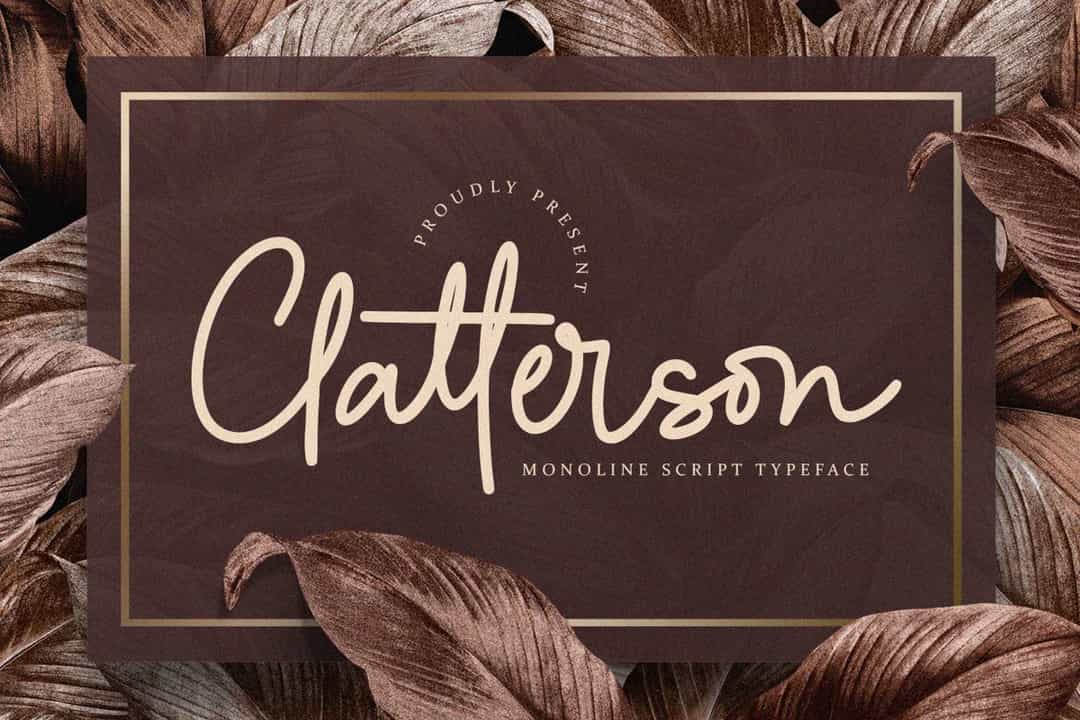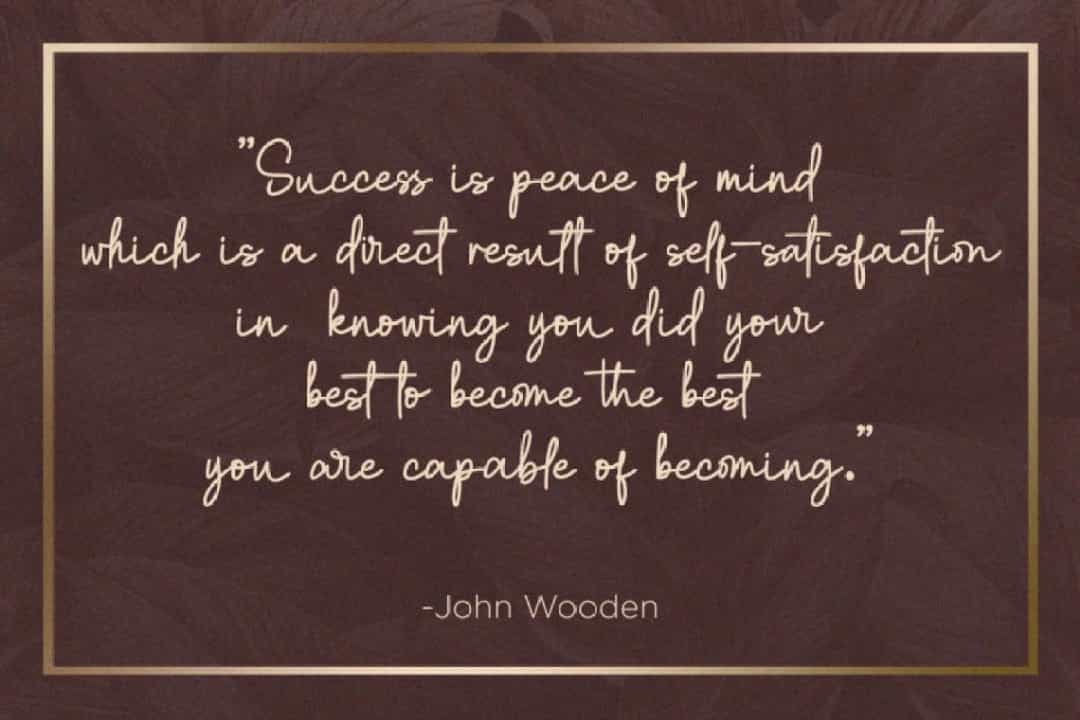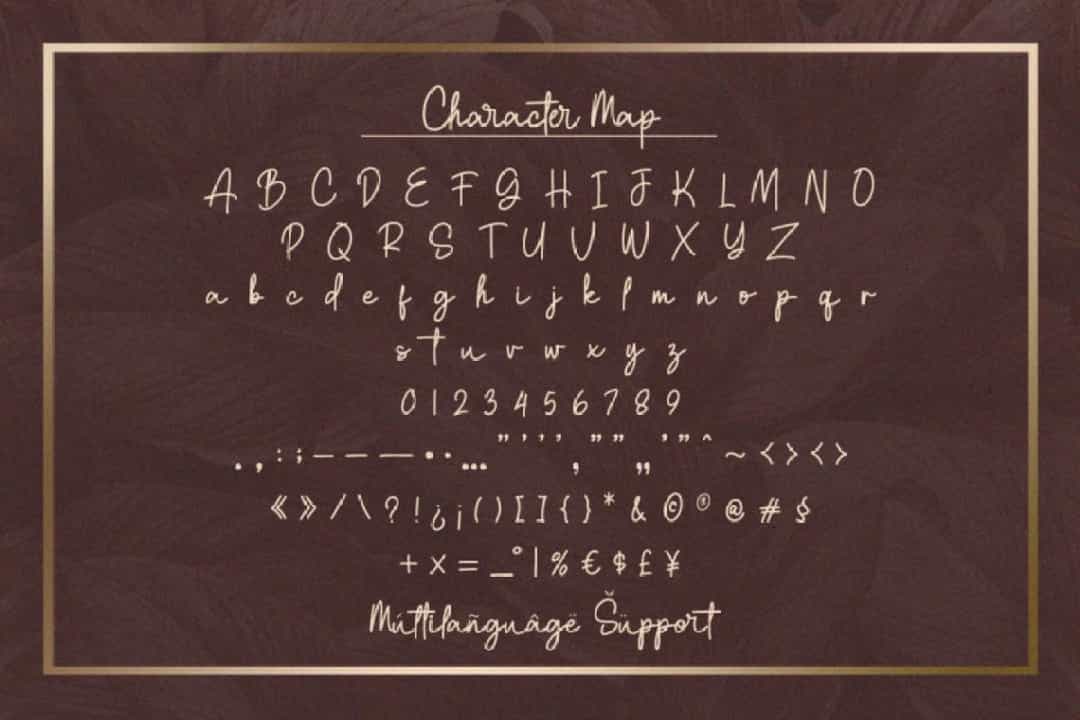
Discover Clatterson Typeface, part of the Handwritten Script Monoline Personal collection—a versatile and unique font perfect for adding a personal touch to your projects. Download it for free and enjoy crafting designs with style, from invitations to social media posts. This font is available exclusively for personal use, giving you the freedom to create without limits. Unlock your creativity with Clatterson Typeface today!
Clatterson is another great monoline style script font that has that real and informal feel to it. Suitable for branding, logo Design and Lettering and Logotype, clothing, Magazine, packaging, posters and shopping bags, posters T-shirts, book covers, Photography, special events and any other design projects.